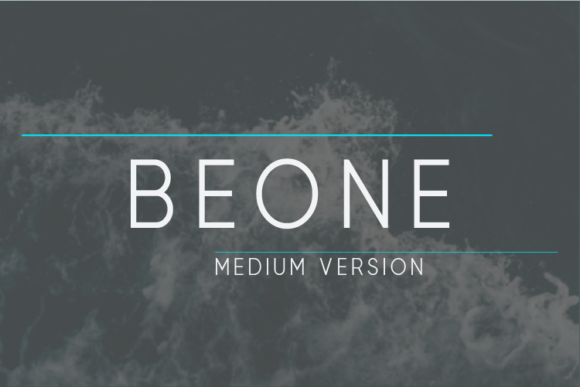
Introducing Beone Medium: The Modern Sans Serif Font for Creative Projects
Have you ever been in the middle of a design project, and suddenly, you’re stuck on finding the perfect font? I recall a recent experience where I was working on a branding project for a natural cosmetics company, and I just couldn’t find a font that captured the essence of their minimalist and elegant packaging design. That’s when I discovered Beone Medium, a modern sans serif font that has become my go-to for various creative projects.
A Personal Review of Beone Medium
As a designer, I’m always on the lookout for fonts that can elevate my projects and make them stand out. Beone Medium has been a great addition to my font library, and here’s what I love about it:
- ✨ Modern and clean aesthetic: Beone Medium has a sleek and contemporary look that fits perfectly with trendy minimal branding and natural cosmetic packaging design.
- ✅ Versatile and neutral: The font comes in a range of weights, but the medium weight is perfect for body text and headlines, making it a great all-around choice.
- 💡 Excellent for digital and print: Beone Medium works well in both digital and print formats, making it a great choice for various applications, from social media graphics to brochures and business cards.
While Beone Medium is an excellent font, it’s not without its quirks:
- 🤔 Limited character set: Beone Medium has a standard character set, but it might not have all the special characters or glyphs you need for specific projects.
- ⚠️ Not suitable for very small text: While Beone Medium is legible at smaller sizes, it may not be the best choice for very small text, such as footnotes or captions.
- Experiment with OpenType features, such as ligatures and stylistic alternates, to add visual interest to your text.
The Backstory of Beone Medium
Beone Medium was designed with the modern designer in mind. Inspired by the clean lines and minimal aesthetic of natural cosmetic packaging, the font’s creator aimed to craft a font that would be both versatile and elegant. The result is a font that’s perfect for a wide range of creative projects, from branding and advertising to packaging and digital design.
| What is Beone Medium? | Beone Medium is a modern sans serif font inspired by trendy minimal branding and natural cosmetic packaging design. |
| Is Beone Medium suitable for digital use? | Yes, Beone Medium works well in digital formats, including social media graphics, websites, and email marketing. |
| Does Beone Medium have OpenType features? | Yes, Beone Medium has a range of OpenType features, including ligatures and stylistic alternates, that can add visual interest to your text. |